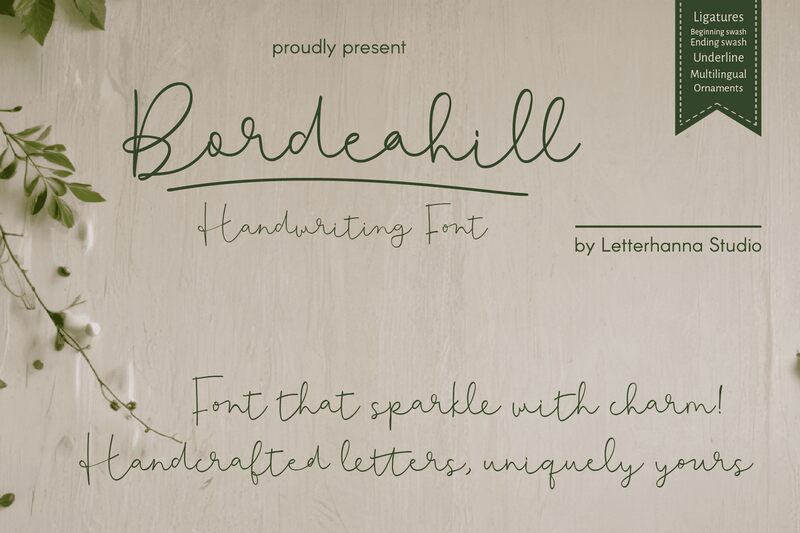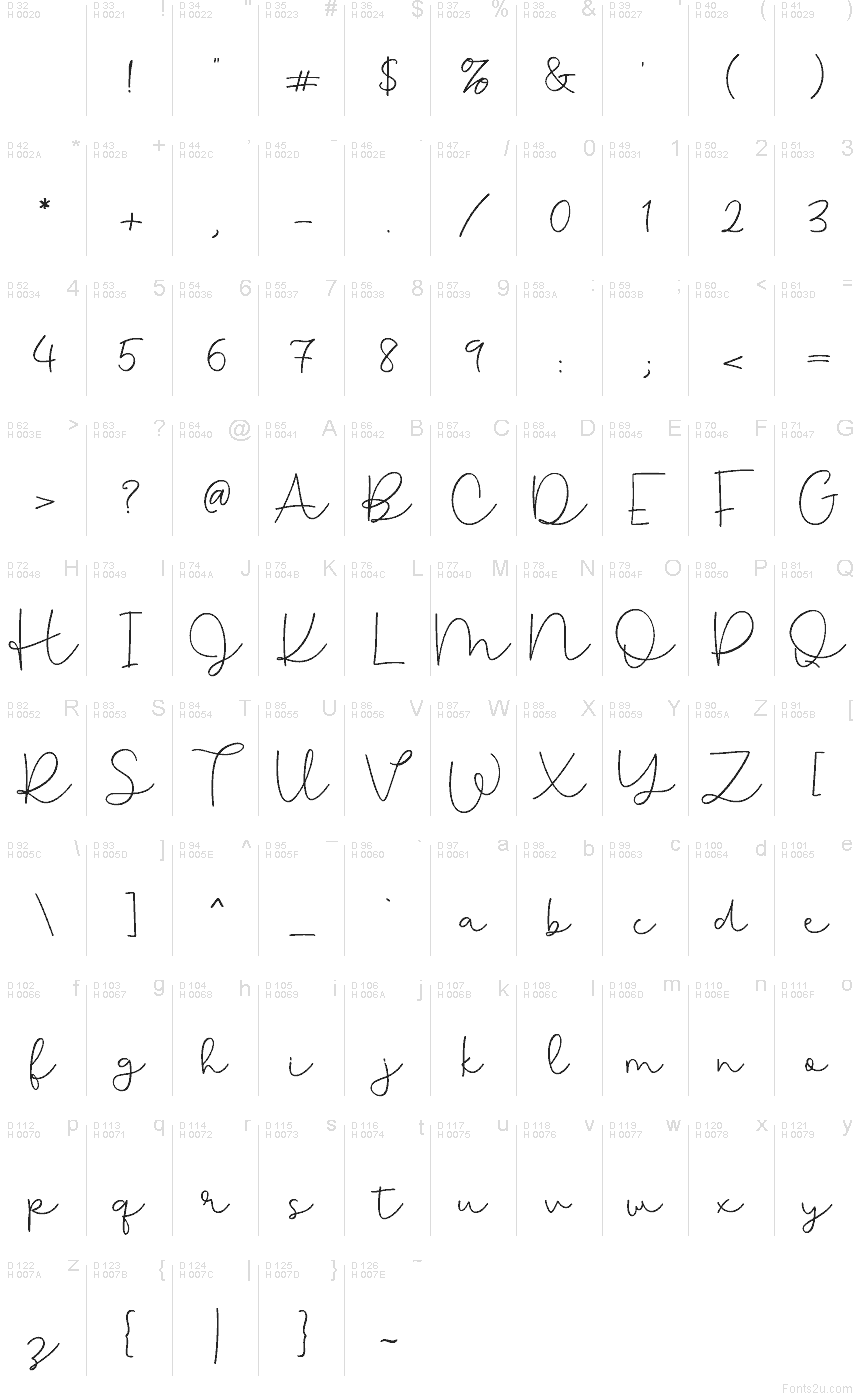
Bordeahill Handwriting Font
Bordeahill Handwriting font by Rinaldo Hasibuan of Letterhanna Studio is a light handwritten font with a modern and expressive style. It carries an elegant and flowing appearance that adds a touch of casual sophistication to its overall design. Its signature-like characters make the font ideal for giving projects an exclusive and original look.
Use this free handwritten font, especially where you need to realize branding, advertisements, signage, invitations, apparel designs or product packaging. Use it to also personalize greeting cards or event invitations when these require handwriting-style typography for added elegance. Furthermore, authors may take advantage of the expressive typeface to design book covers for romance or thriller novels or used it in magazines and e-books as well.